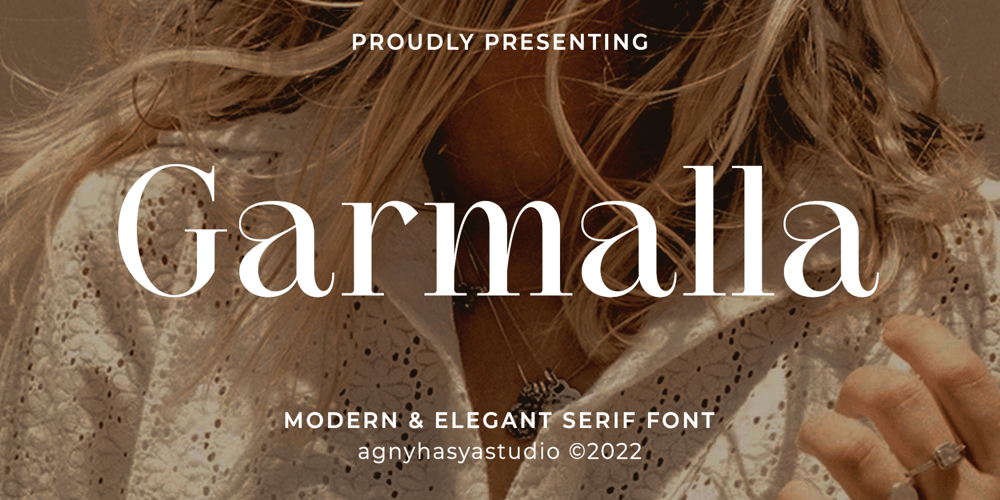
Garmalla
Garmalla font
Garmalla Font Family was designed by Firman Maulana and published by Agny Hasya Studio. Garmalla contains 2 styles and family package options. Garmalla is a Modern and Elegant Display Serif Typeface Font created with glyph variations like alternates and ligatures. Perfect for your design projects like logos, branding, advertising, product designs, stationery, photography, art quotes, wedding designs, fashion designs, and more.Featured with Uppercase and Lowercase, Numeral and Punctuation, Multilingual Support, and Opentype Features.